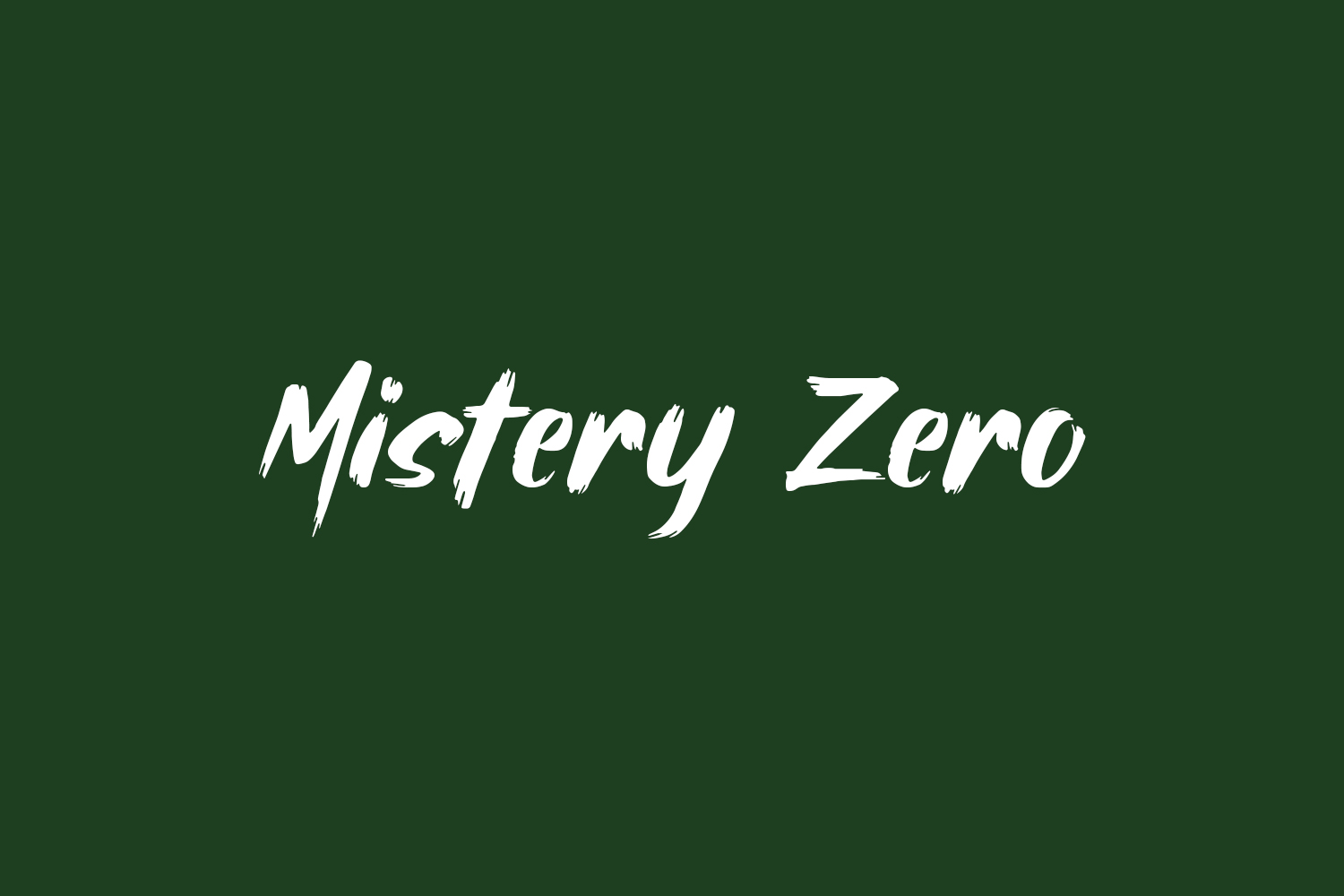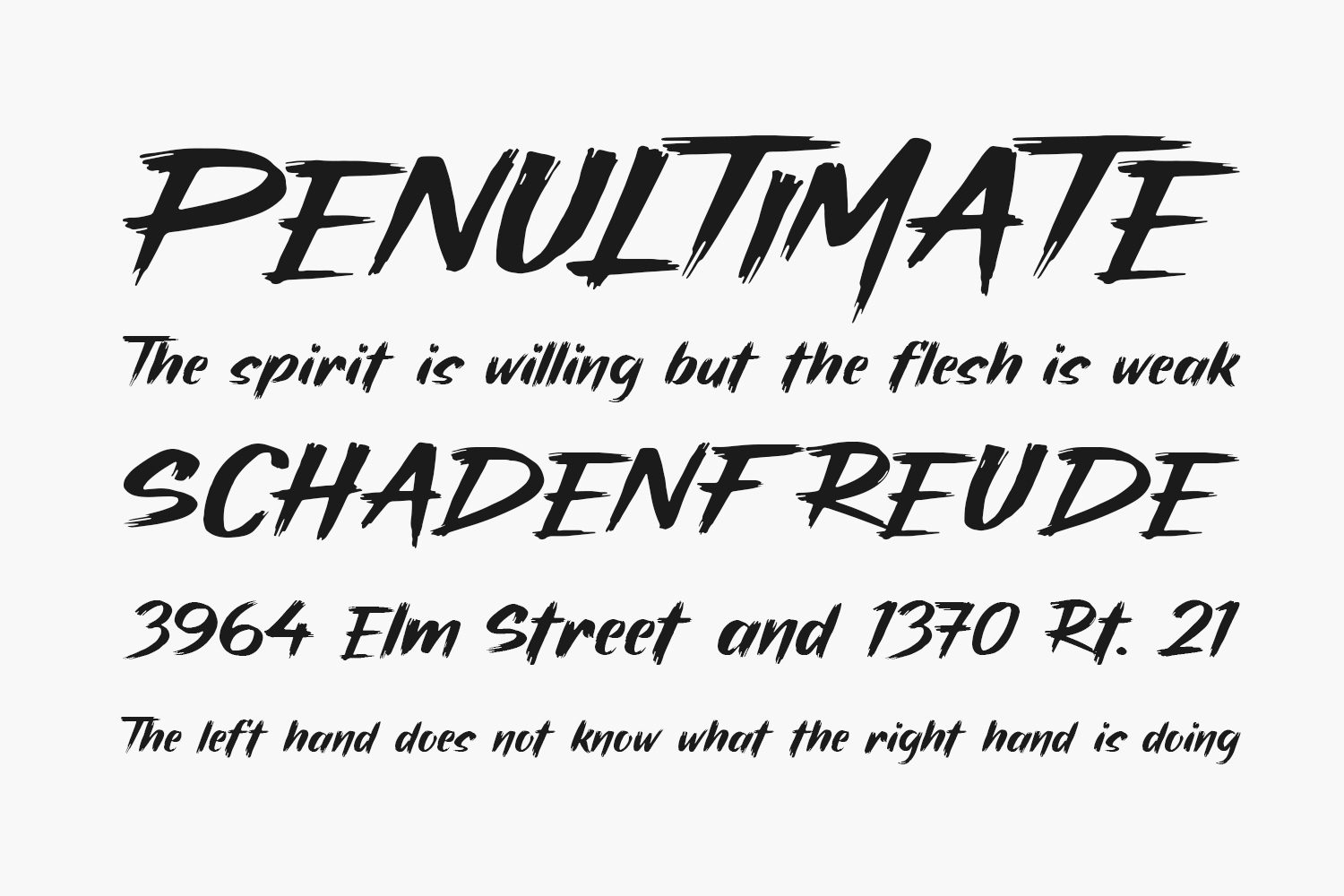
Mistery Zero Free Font is a cool and spooky handwritten brush font. Not only it can help you create unique Halloween designs, but can also give a mysterious, creepy vibe to all your horror-themed projects. Mistery Zero Free Font was designed by Alit Design and is free for personal use only. Please purchase the full version for commercial use.